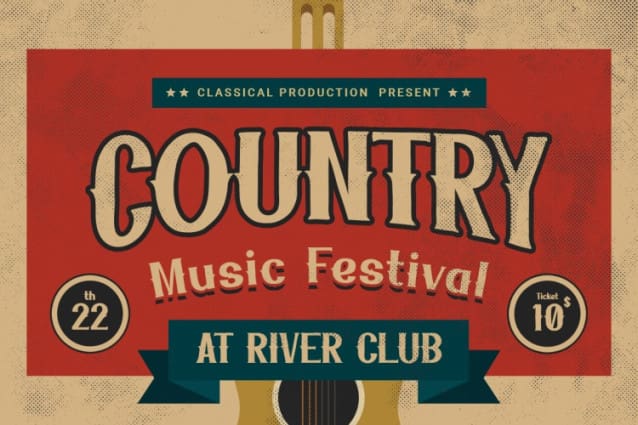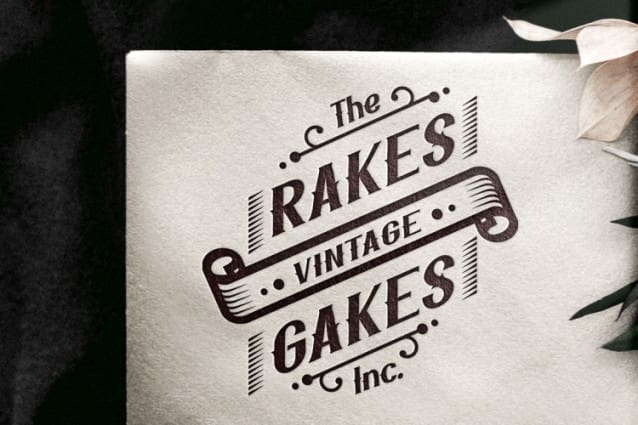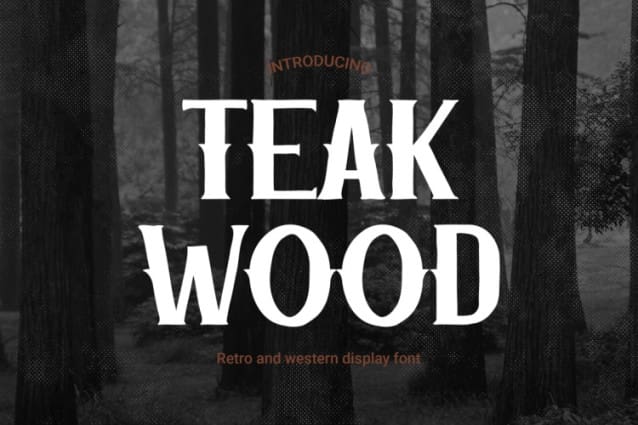
Teak Wood Font
Teak Wood Font combines retro and western aesthetics, making it an essential tool for your creative projects. Its sharp, bold strokes and elegant curves evoke vintage sophistication, while its modern versatility ensures it fits seamlessly into contemporary designs. Whether you’re crafting game titles, designing posters, or developing branding materials, Teak Wood brings a timeless charm that sets your work apart.
This font transitions effortlessly between retro gaming interfaces and modern branding needs. The striking, high-contrast letterforms create depth and character, drawing the viewer’s attention while making a bold statement. By using Teak Wood, you can deliver nostalgic visuals with a contemporary twist, ensuring your designs captivate audiences and leave a lasting impression.